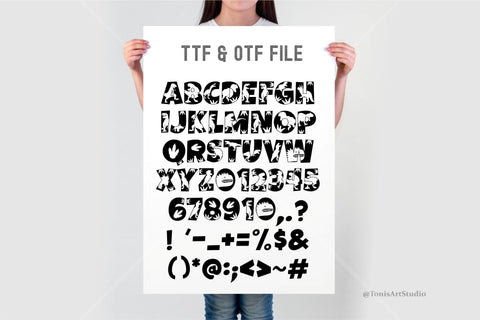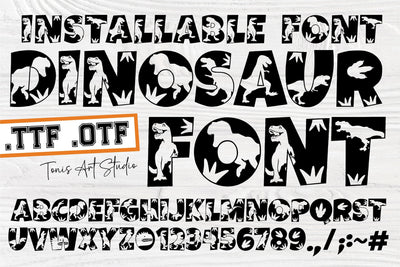
Dino Adventure Font – Fun Dinosaur-Themed Alphabet and Numbers OTF/TTF
Unleash your creativity with the Dino Adventure Font, a playful and bold typeface featuring dinosaurs! Perfect for kids' designs, party invitations, educational materials, or any project that needs a prehistoric twist. This font includes both uppercase letters and numbers, each designed with unique dinosaur silhouettes, footprints, and other dino-themed details. Whether you're designing for apparel, posters, or digital content, this font will bring a roaring good time to your work. Available in both OTF and TTF formats, it’s easy to install and use on any system. Get ready to make your projects dino-mite!